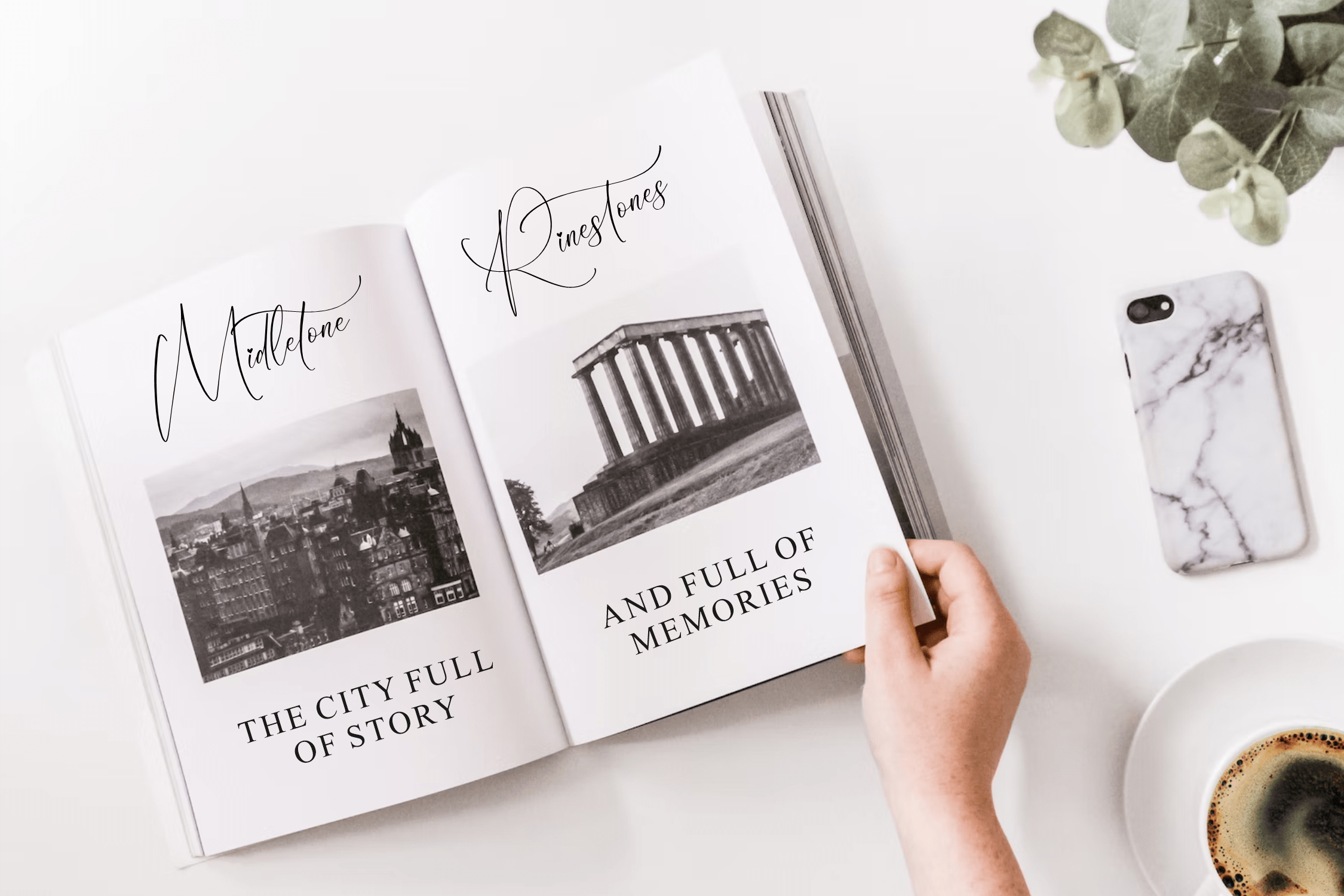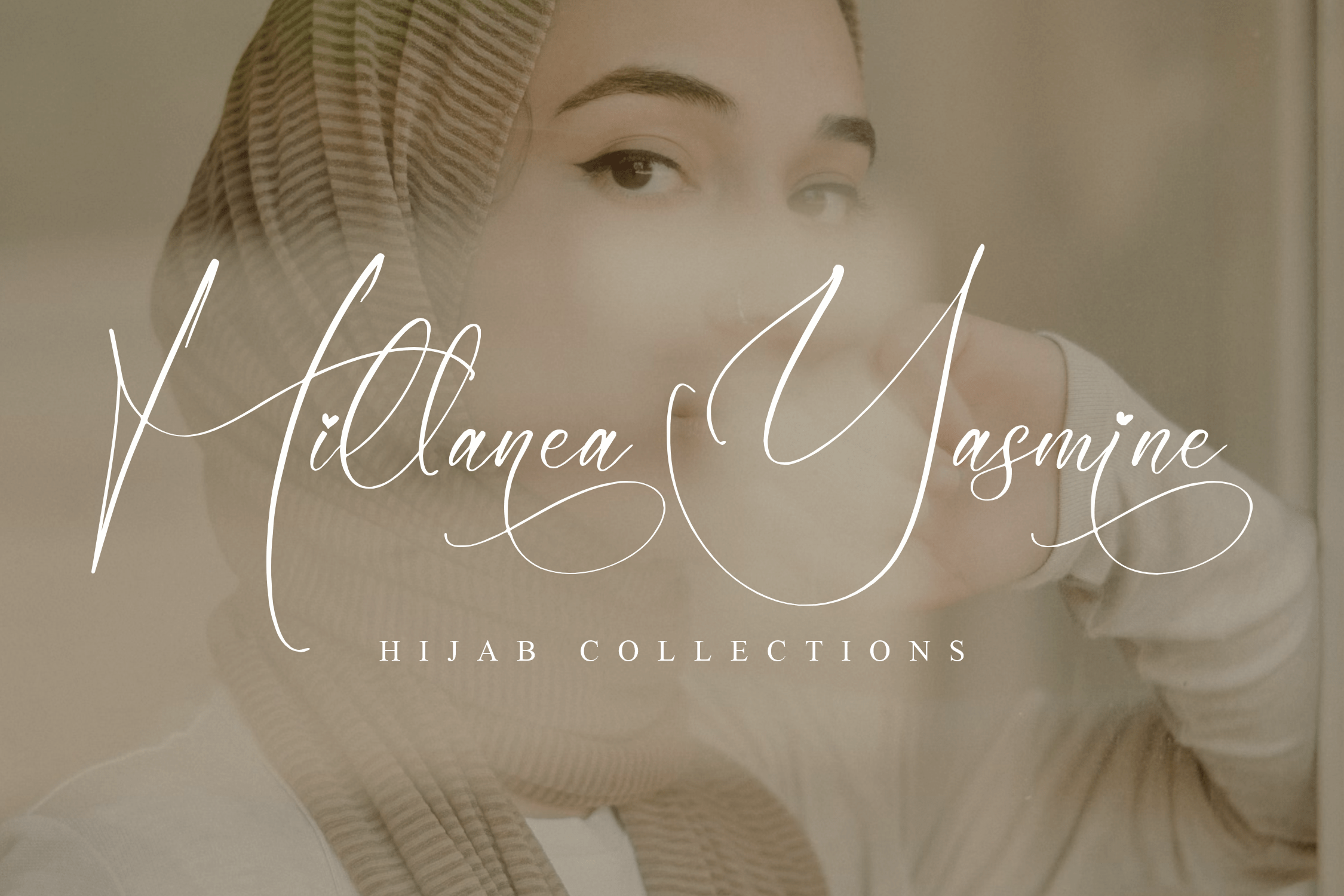
Moriyathena Font
Moriyathena Calligraphy Font is a luxury script that has own unique style & modern look. This typeface is perfect for an elegant & luxury logo, book or movie title design, fashion brand, magazine, clothes, lettering, quotes, and so much more.